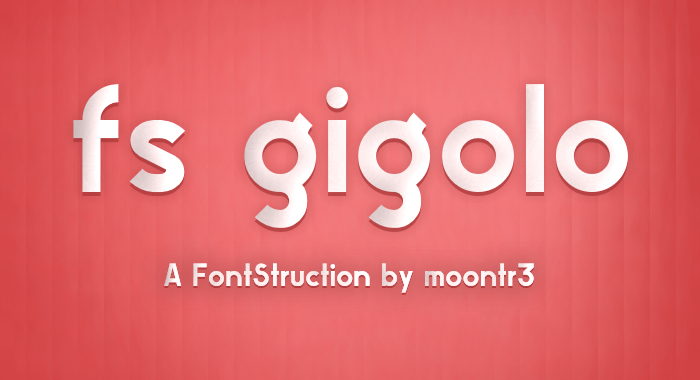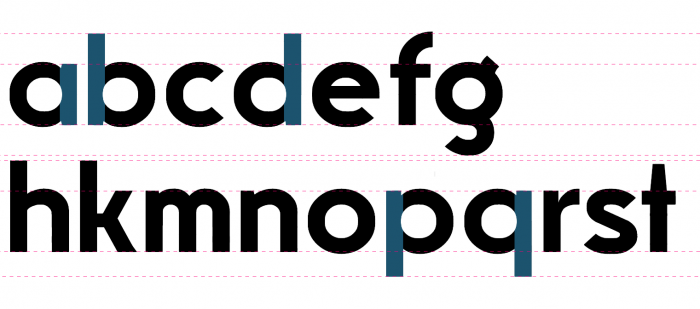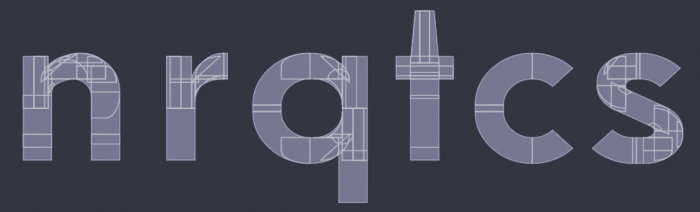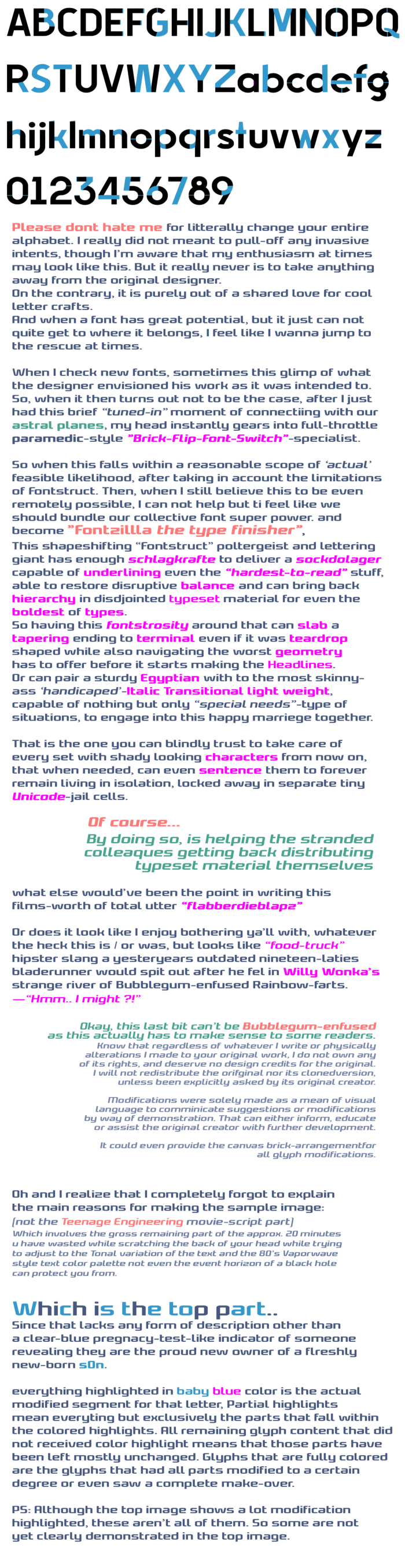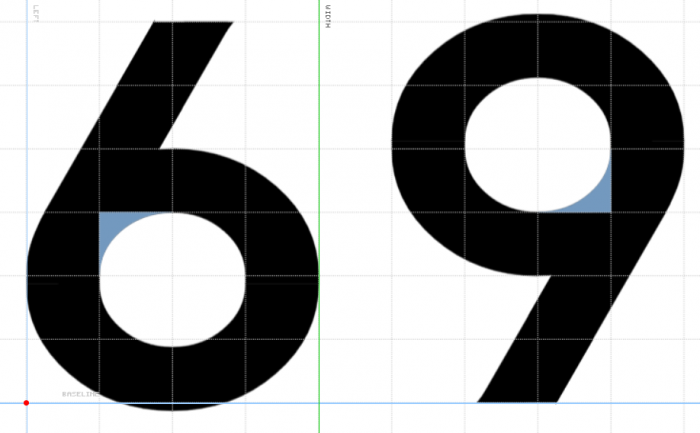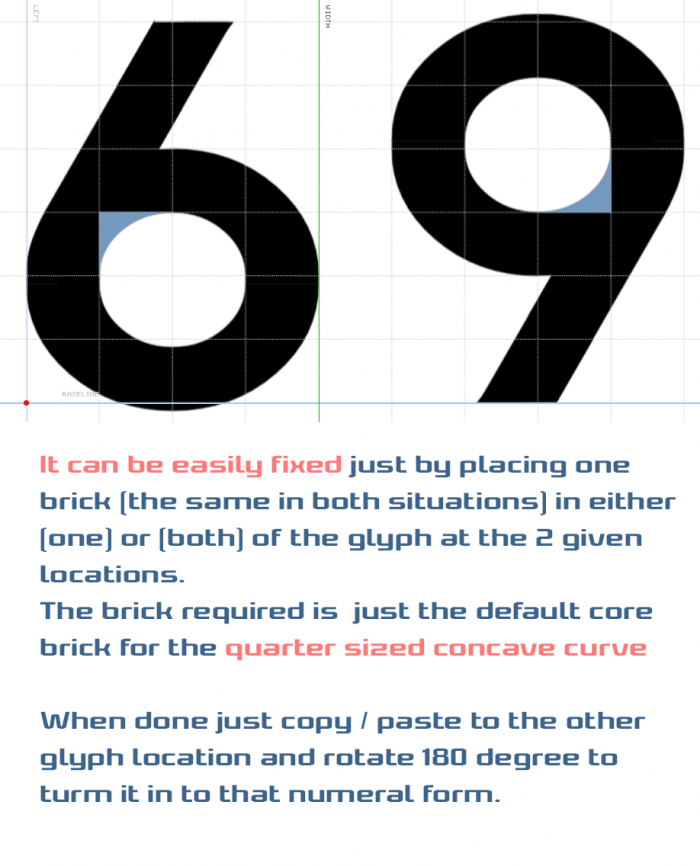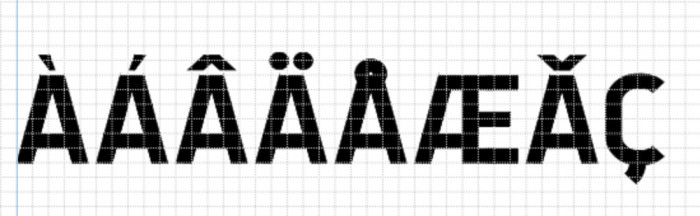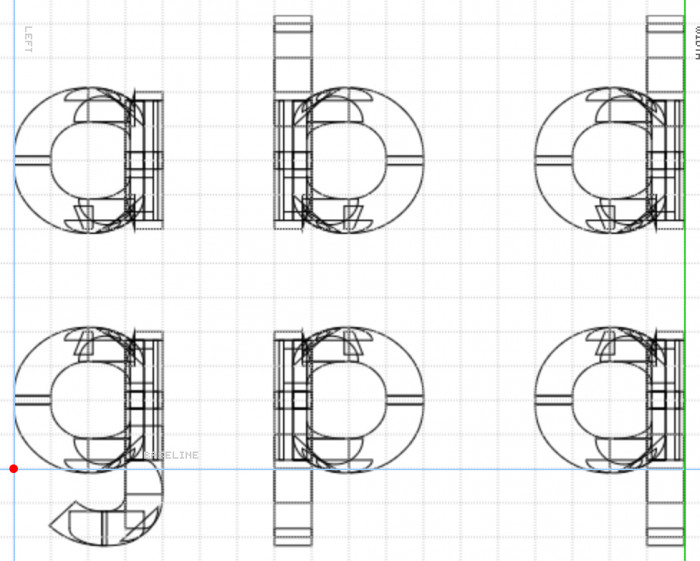
fs gigolo
by moontr3
NO KERNING DONE ATM!!!
A font mainly inspired by Gilroy. Some glyphs are not really great, so improvements and clones are really welcome right now.
Latin accents hopefully soon.
And I know this is ugly. Cuz there's no kerning.
Amazing.
Updated the lowercase n to have the same width as the lowercase u. Let me know if it looks better
The idea is not bad at all.. The one thing I doesn't really like about it is the unrefined finish of many characters. Hardly no optical correction, and the components you sort of 'did' try to implement optical compensation to, like that tapering stroke modulation at the bowl/stem intersects rather look awkward and clumsy than they are satisfying, and the foremost reason they've been put in there is hardly even addressed at all. Also I think that for geometric grotesques vertical shoulder spurs should sit slightly bellow the overshoot of the vertical axis. With transitional or humanist types they could exceed a tad bit more since they usually feature cupped/wedge/curve shaped spur serifs that influence perceived weight and character by feeling less chunky. But with the rather abrupt way a flat tipped spur such as yours often terminates the stroke is somewhat "too much" to have sitting flush with the apex of a curved shape. This wouldn't typically work that well with Egyptian slab serif styles either, this due to the blocky nature those components tend to have when they are designed for this style of lettering. So, now, while holding on to that above knowledge, briefly jump back to your Fontstruction and take a secondary look at your vertical shoulder spurs. It shows somewhat distracting levels of 'positive' (filled) space density, especially so because the spurs are located near the stroke intersections of the shoulder joints. Creating the optical illusion that has the section appear more bulky than it actually is. In your font's case it is than also partially amplified by the font's overall properties, such as balance and weight ratio. The bold styles in general will have more issues in these area's.
Usually I would now have attatched an visual representation of what I just told to clarify the bomb smoking chronic haze of information above. But I was on a musical mayhem this very weekend, which had led to a full on psychosomatic vortex of electro-synthetic neural waveshaping charades which of course had to recorded into my "long since clogged up massively allready"-storage.
So at this point all of my drives got maxed-out and OD'd so badly that neither Adobe Photoshop nor Illustrator are still able to even launch, both prompting the "scratch disk is full" error dialog after which they simply shut down again. lololol
So my sincere apologies for failig you with this "even worse" than the usual "this is hard enough to digest already"-chuncks of my more smelly brain-fart anesthesia.
But yeah, this font has a lot of potential already..
All of the the things I mentioned in my comment above was addressed in these improved characters.
I suggest you thoroughly analyze the things such as stroke modulations, curve transitions (inner + outer), crossbar weight ratio, stroke intersects, spurs and stroke endings as well as top/bottom overshoots. Also cross-reference the characters with those of your own, to easily see what actual improvements been made and clearly see the effectiveness at work for these changes.
Just ask me for the glyphs if you want to easily copy them into your original font.
Oh, and in response to your previous comment about updating the width of lowercase letter "n" and making it the same width as lowercase letter "u". Typically, and definitely more often than not, is that the lowercase letter "u" is designed to be a tiny tad bit narrower than lowercase letter "n".  Especially in fonts that features a lowercase letter "u" that has no spurred stroke stop at the bottom right.
This is kinda just a proof of concept, not like an actual big project (that's why there's no kerning by the way), but I will certainly look into improving the letters. Thanks for the samples you provided, these will help out a lot.
@Sed4tives I accidentally deleted my previous comment so here I go again I guess.
Again, thank you very much for providing such a detailed response. I don't think I would've fixed this font without this sample, I really appreciate that you're spending your time to point out and correct my mistakes one by one.
I basically remade almost half of the glyphs, even though I left some of them untouched (like uppercase S). I still don't think this font is perfect now, but that's only because the lack of my proper skills and font making experience. I am by no means a god of FontStruct like I think you are.
And I don't hate you at all, if anything, I am only thankful for this kind of feedback. Thanks for explaining everything in detail.
@moontr3: "a god of Fontstruct" - oh my...
Nah, not even by a long shot. I'm just a dude that has far too much time on his hands and with little to zero obligations that require my attendance. Combine that with my "not-so-healthy" obsession for all things type and the complicated love affair it had turned into isn't necessarily a bad thing..
Nonetheless, I can all but only stand humble in appreciation for such loving words and big compliment I would not dare to believe I even remotely deserveane actually..
PS: I can temporarilly publish the modified clone of your font so that you can clone it back for further usage or whatever...
INTRODUCING: fixed glyphs and alternates
so i'll suggest you to use these as a guess, i would like to changing/fixing some of the letters and adding alternates
Technically, the Æ isn't an accented letter, but a ligature of A + E.
i know